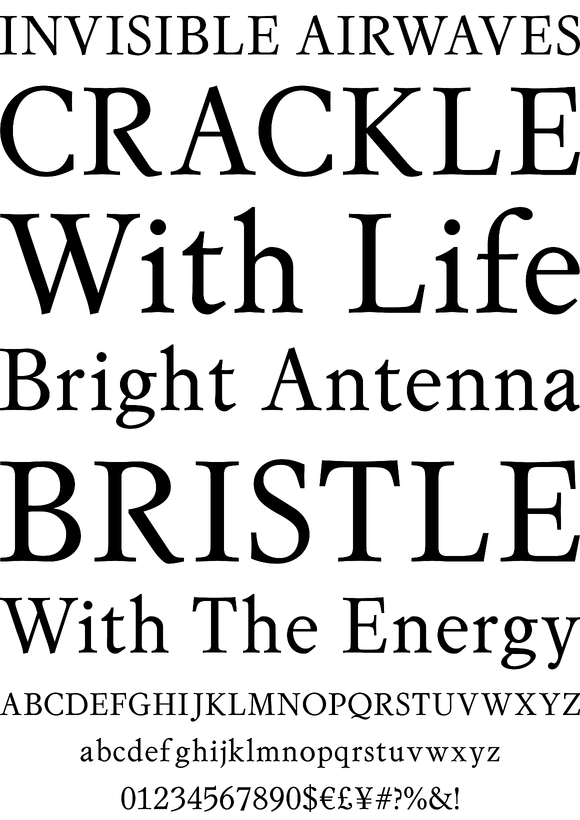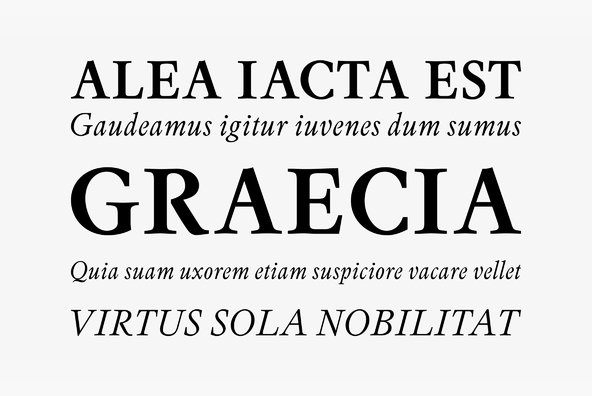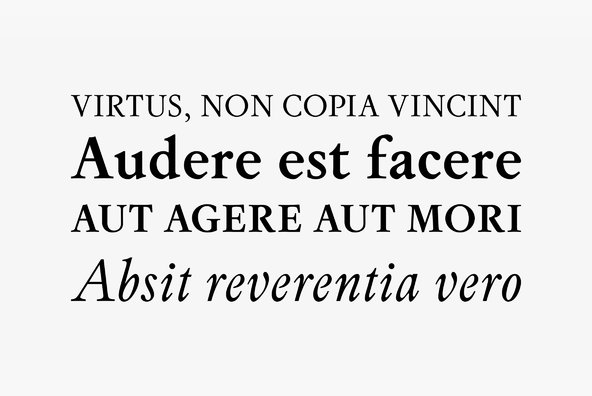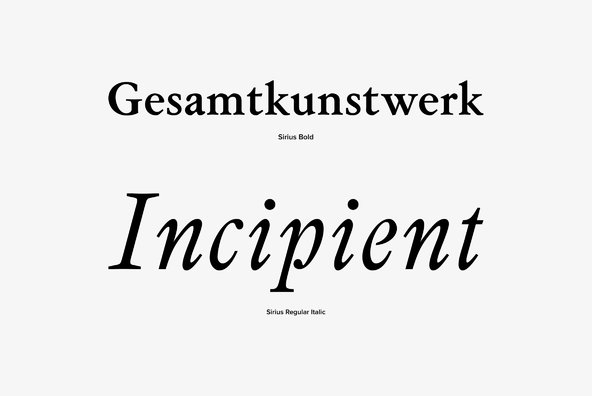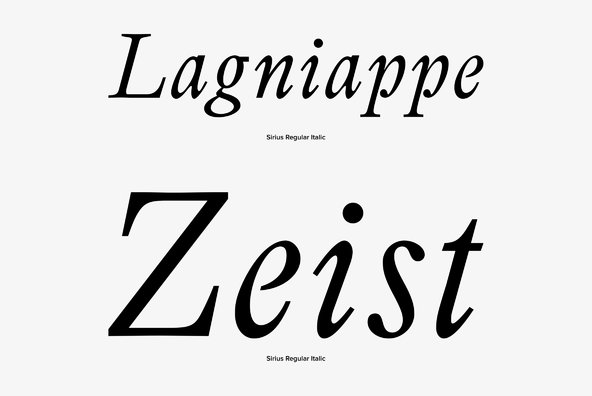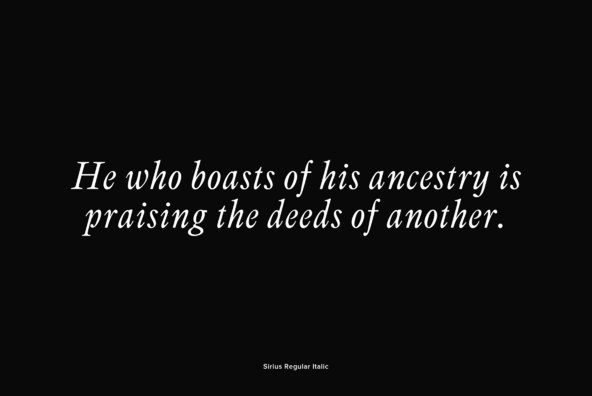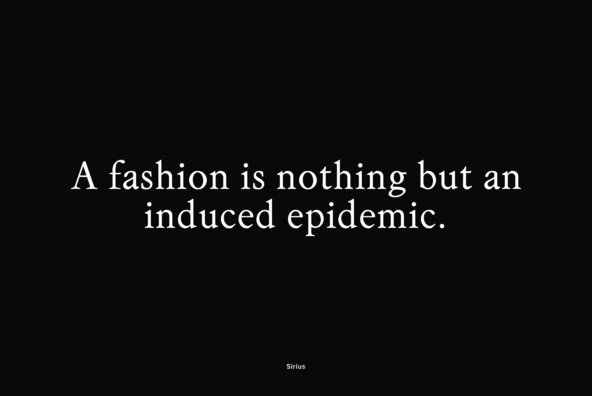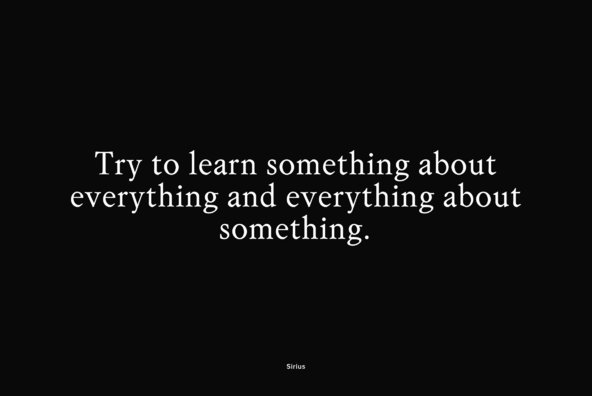
Sirius is an old style and formal serif designed by Coen Hofmann in 2003. The Sirius family contains four beautiful style options that also includes a small caps style.